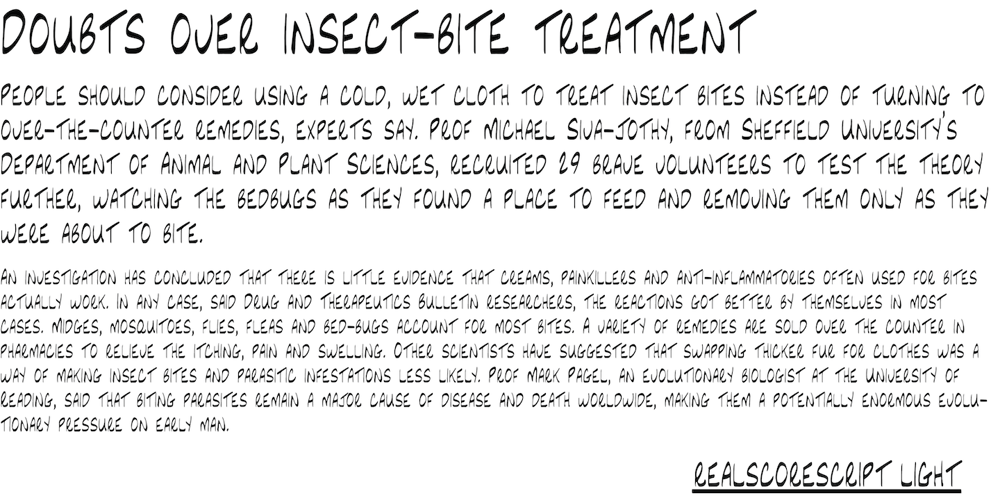
RealScore Script Font Family was designed by Nor Eddine Bahha and published by NorFonts. RealScore Script contains 9 styles and family package options. RealScore Script was inspired from the old west-coast music copyists. It is a handwritten font coming in 8 weights: Realscore Script Light Italic Realscore Script Light Oblique Realscore Script Regular Realscore Script Italic Realscore Script Oblique Realscore Script Bold Italic Realscore Script Bold Oblique RealScore Script fonts can be used with any word processing program for text and display use, print and web projects, apps and ePub, comic books, graphic identities, branding, editorial, advertising, scrapbooking, cards and invitations and any casual lettering purpose… or even just for fun!